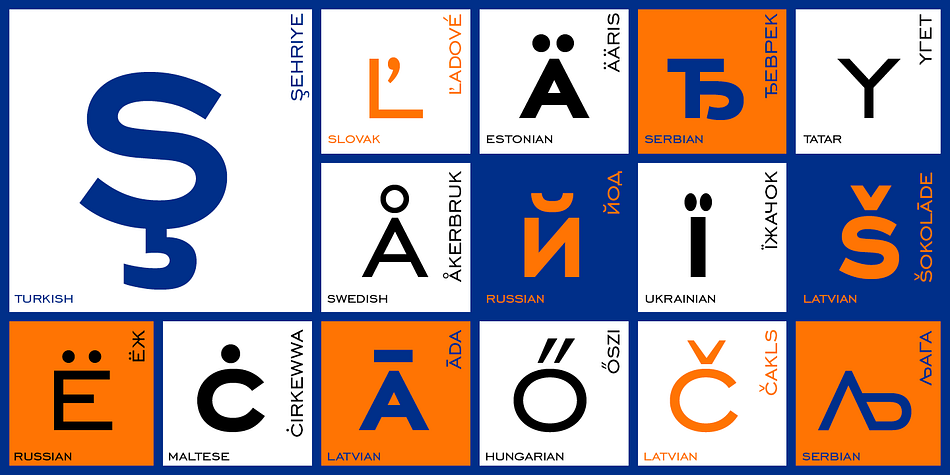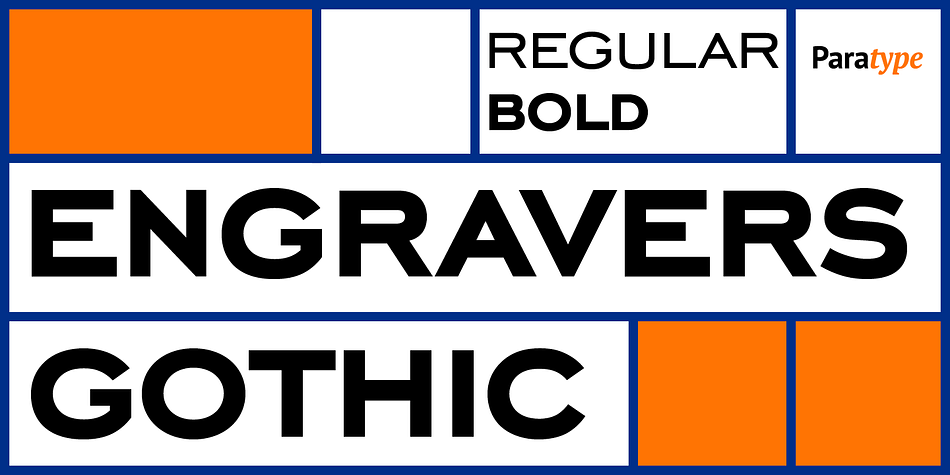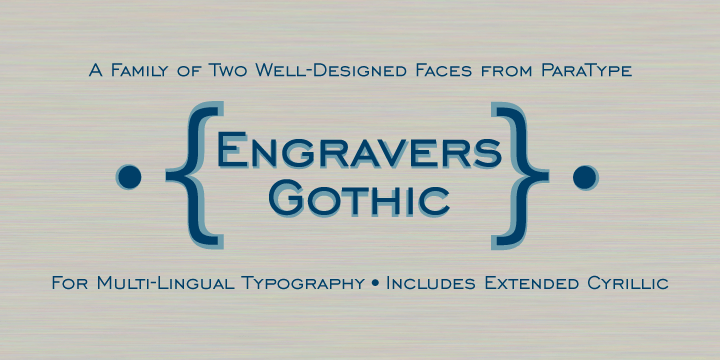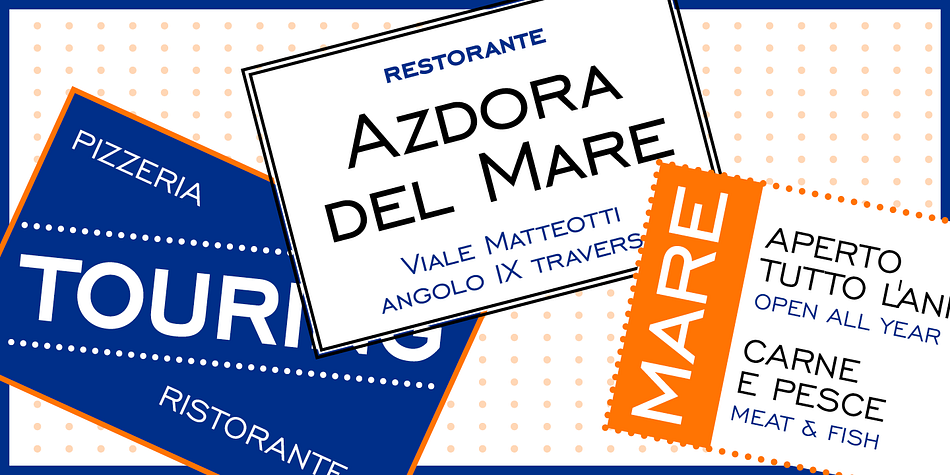
Designed by Isabella Chaeva, Engravers Gothic is a display sans font family. This typeface has two styles and was published by ParaType.
Designed at Bitstream. An old extended Grotesque. For use in advertising and display typography. Cyrillic version with adding Bold style created for ParaType in 2003 by Isabella Chaeva.